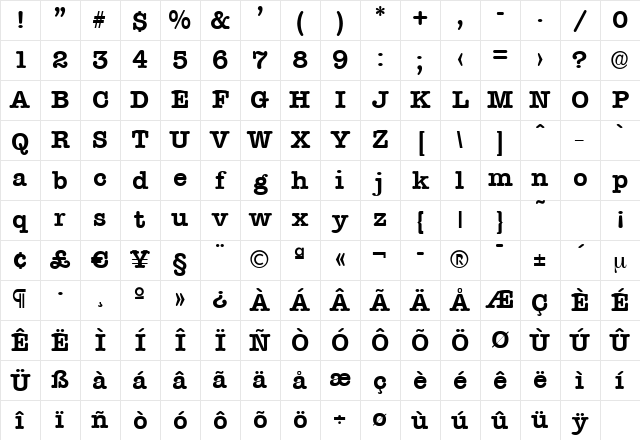
ThorBecker Bold Free Font
ThorBecker Bold
ThorBecker Family
Complete ThorBecker Bold glyph index. Displaying only characters natively supported by ThorBecker Bold font.
Design Context for ThorBecker
ThorBecker is a composed and adaptable typeface that performs quietly and consistently across a wide range of design contexts. Its bold stroke weight gives it real presence on the page.